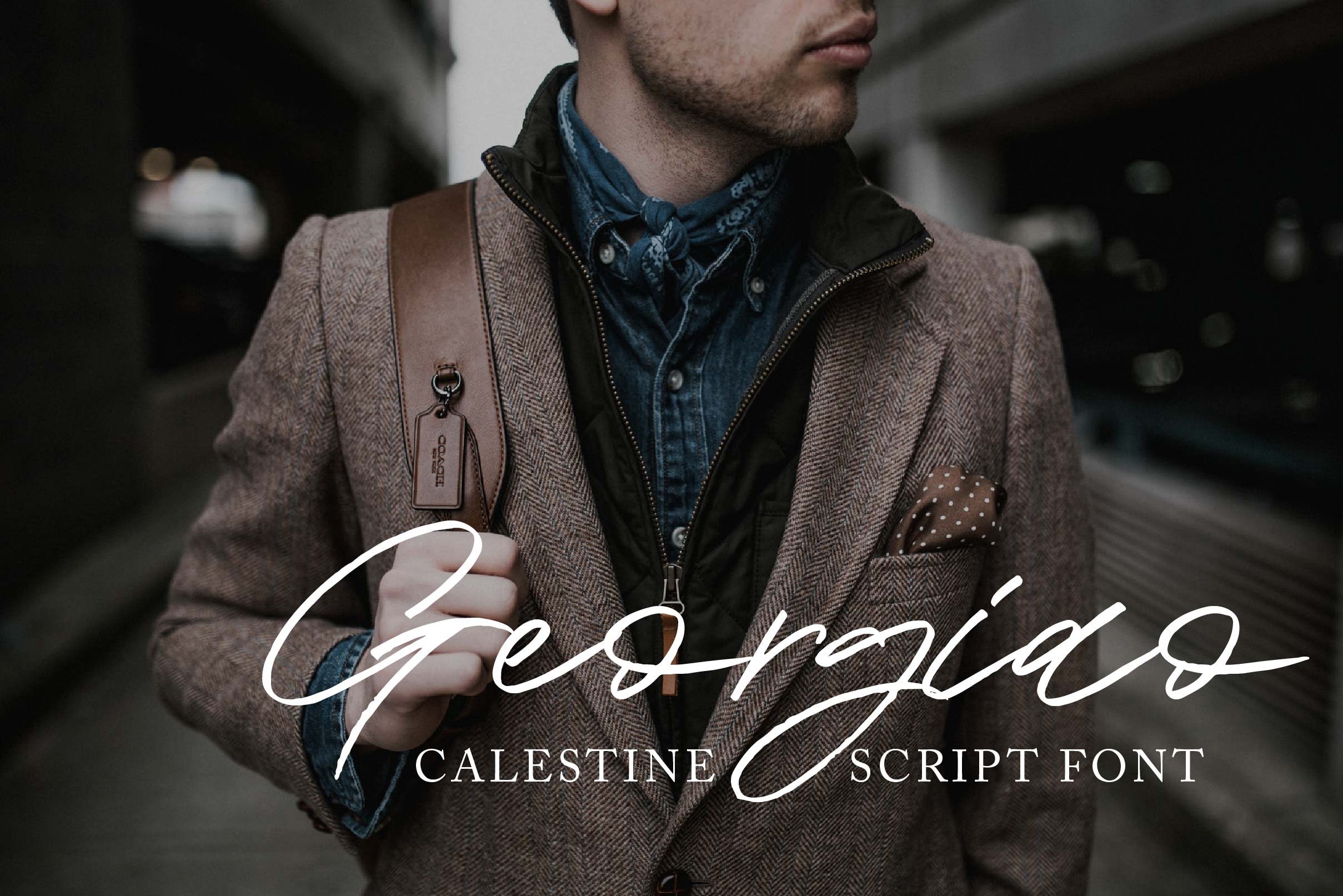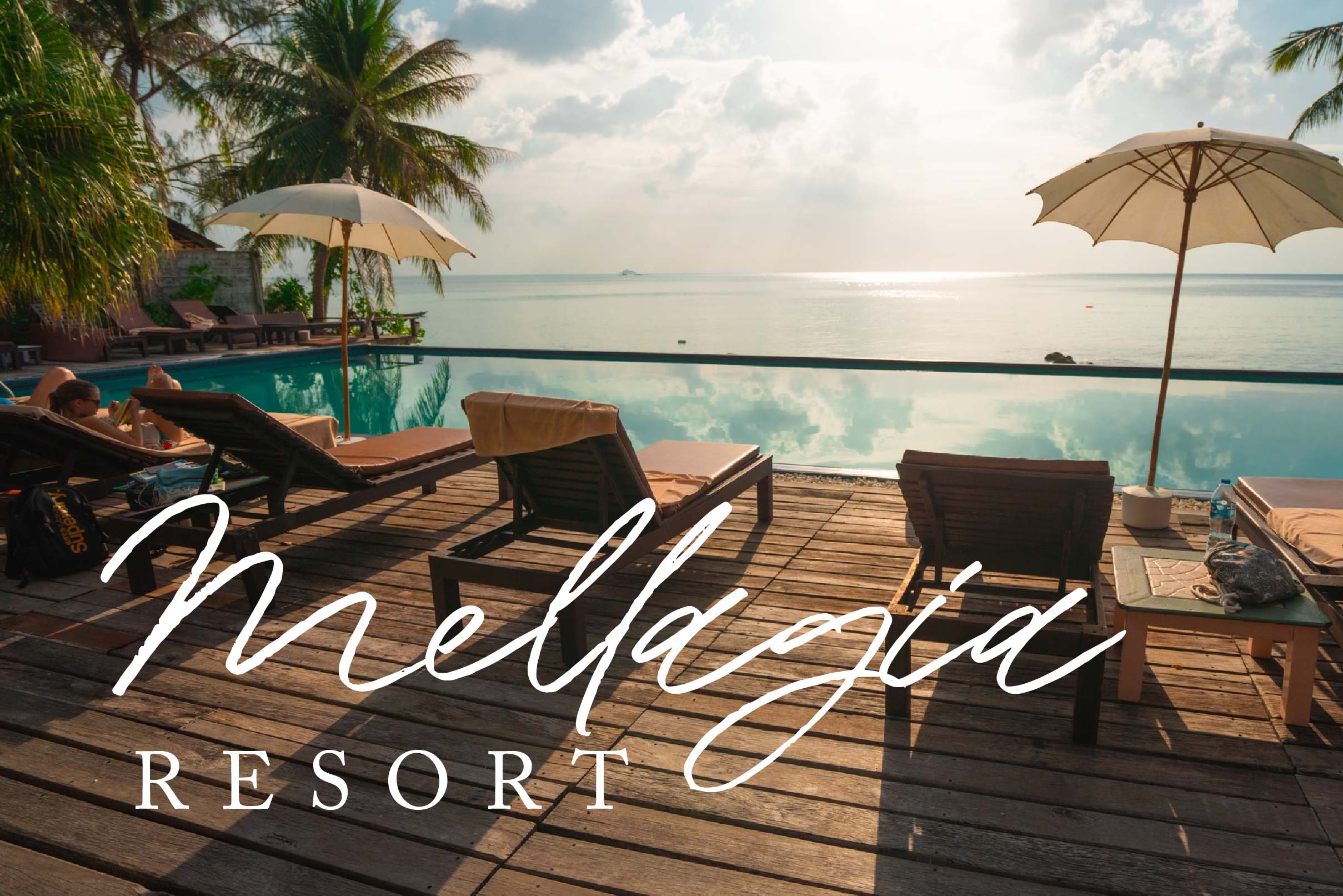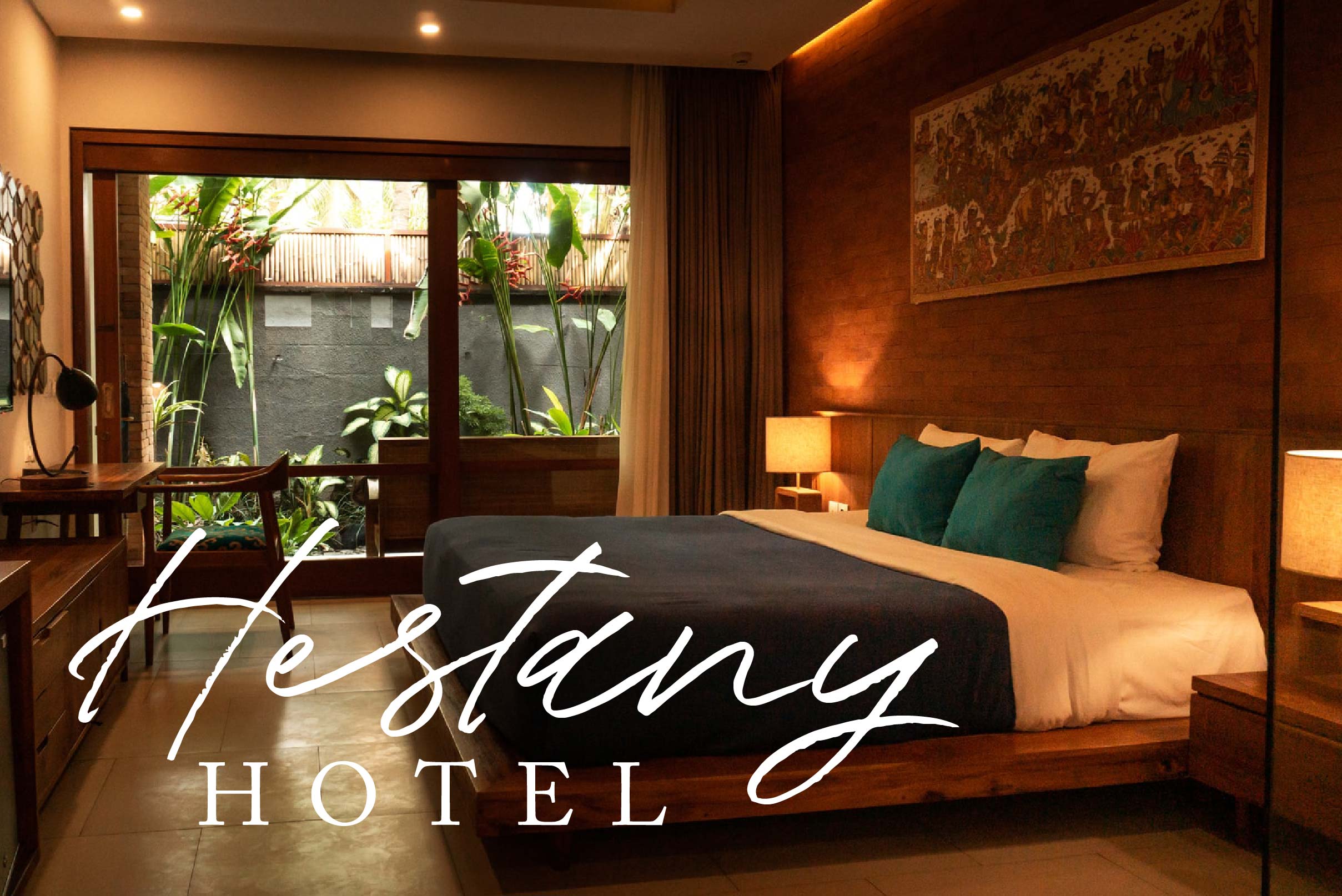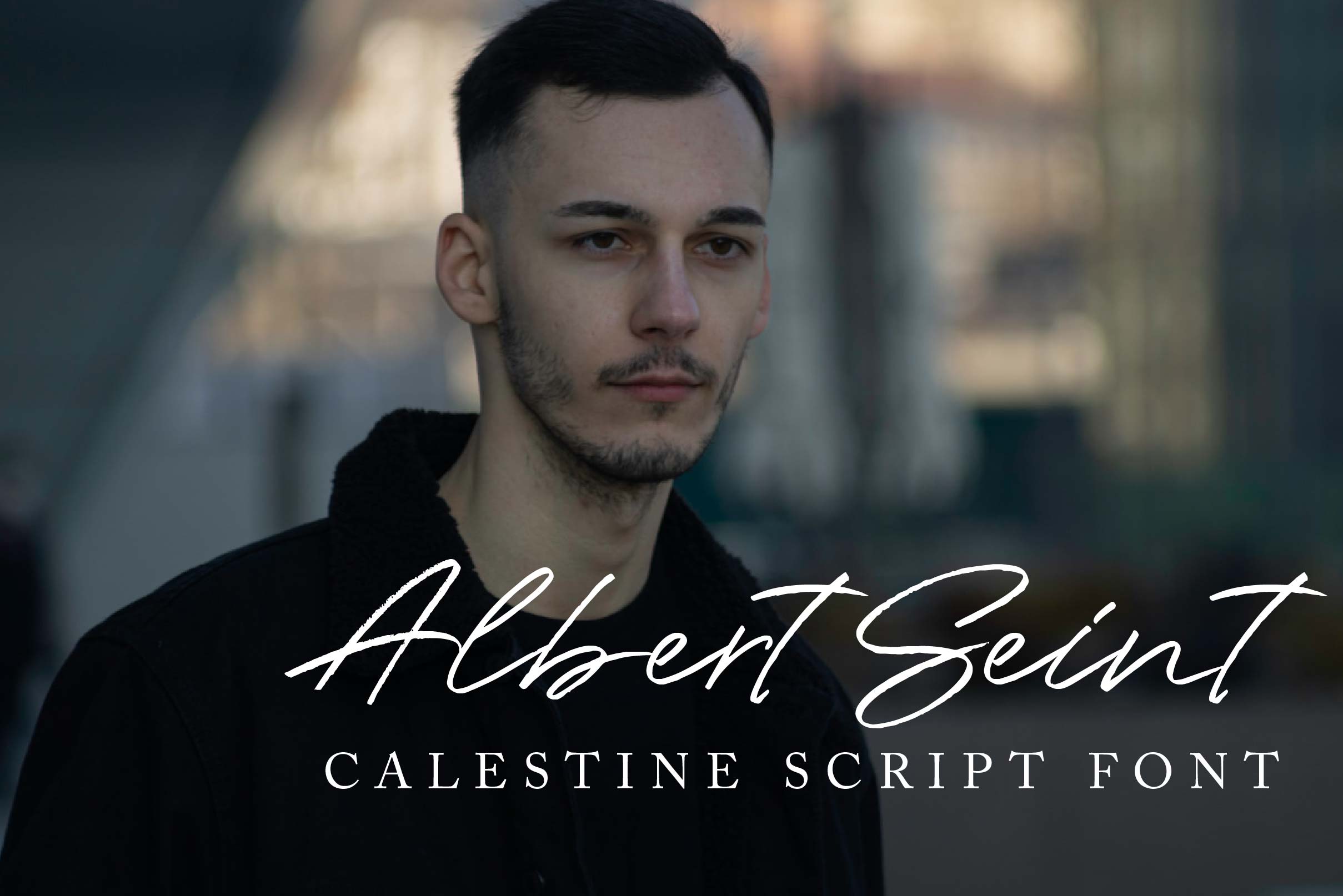
Calestine Font
Calestine Script Font is adapted from two types of Script fonts, these are Signature and Handwritten types. Because it is a Handwritten Font, “Calestine” is appropriate to use for lettering, post card, wedding invitation, greeting card, decorations, brands, etc. It will make the design look more artistic, elegant, and eye-catching because it has the classical vibes of the Signature Font.
– Uppercase, Lowercase, Numeral & Punctuation
– Alternate Letters, Ligature & Swash/Tail
– Multilingual & PUA Encoded